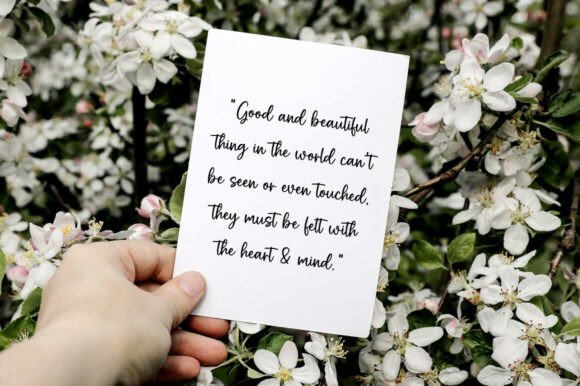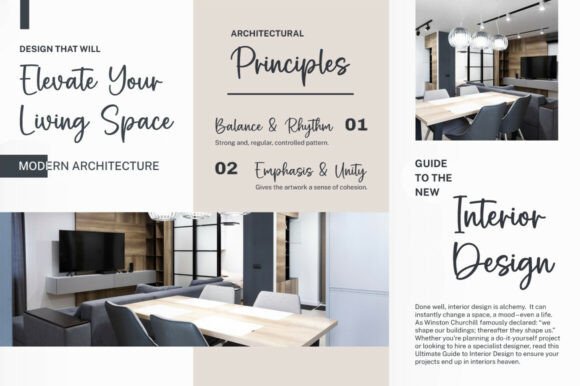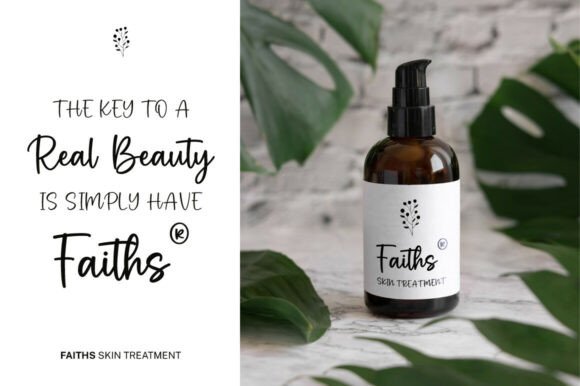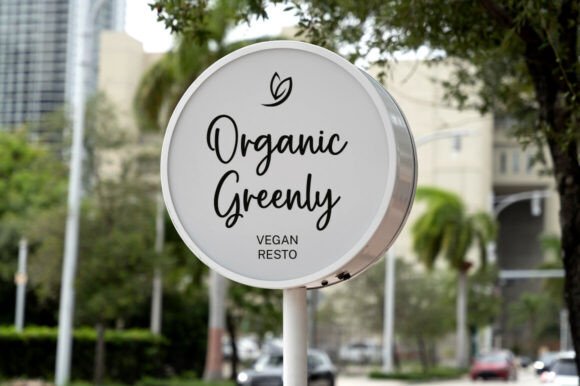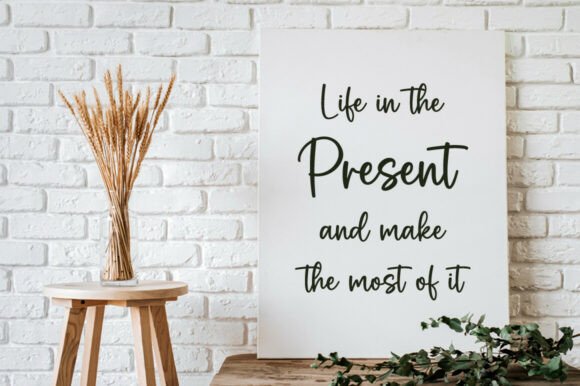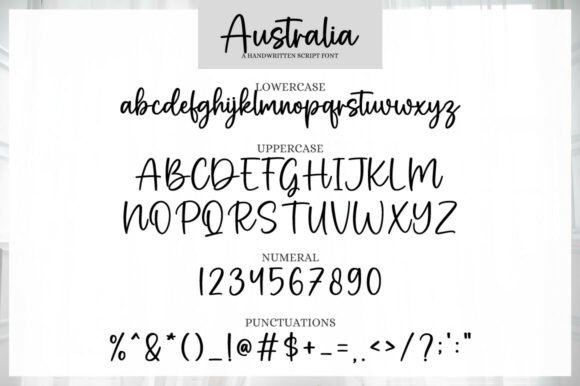
Australia Font: Elevate Your Designs with Elegance and Sophistication
Are you looking for a font that exudes refinement and sophistication? Look no further than the Australia Font. This delicate and refined script font is perfect for designers and crafters who want to add a touch of elegance to their creations. With its incredibly versatile style, you can use it to create a wide range of designs, from gorgeous wedding invitations to beautiful stationary art, eye-catching social media posts, and much more.
The Characteristics of Australia Font
The Australia Font is a script font that features flowing lines, intricate details, and a delicate touch. Its refined and elegant style makes it perfect for designs that require a high level of sophistication. The font is highly legible, making it suitable for use in a variety of contexts, from digital designs to print materials.
Uses of Australia Font
The Australia Font is an incredibly versatile font that can be used in a wide range of designs. Here are some ideas to get you started:
- Wedding Invitations: Create beautiful and elegant wedding invitations that set the tone for the big day. The Australia Font is perfect for printing on high-quality paper or cardstock.
- Stationary Art: Add a touch of elegance to your stationary art with the Australia Font. Use it to create gorgeous notecards, greeting cards, and journals.
- Social Media Posts: Make your social media posts stand out with the Australia Font. Use it to create eye-catching graphics, quotes, and promotions that grab attention.
- Branding: Use the Australia Font to create a sophisticated brand identity for your business. It’s perfect for logos, business cards, and letterheads.
- Packaging: Add a touch of elegance to your product packaging with the Australia Font. Use it to create beautiful labels, tags, and inserts.
Why Choose Australia Font?
There are many reasons why you should choose the Australia Font for your designs. Here are a few:
- Unique and Elegant: The Australia Font is a unique and elegant font that will set your designs apart from the rest.
- Highly Versatile: The font is highly versatile and can be used in a wide range of designs, from digital designs to print materials.
- Easy to Read: The font is highly legible, making it easy to read and understand.
- Customizable: The Australia Font can be customized to fit your design needs. You can adjust the size, color, and style to match your brand identity.
Tips for Using Australia Font
Here are some tips for using the Australia Font in your designs:
- Pair it with Other Fonts: Pair the Australia Font with other fonts to create a unique and interesting design.
- Use it in Combination with Images: Use the Australia Font in combination with images to create a beautiful and eye-catching design.
- Keep it Simple: Keep your design simple and elegant to let the font shine.
The Australia Font is a beautiful and elegant script font that is perfect for designers and crafters who want to add a touch of sophistication to their creations. With its incredibly versatile style, you can use it to create a wide range of designs, from gorgeous wedding invitations to beautiful stationary art, eye-catching social media posts, and much more. Whether you’re looking for a font for personal or professional use, the Australia Font is a great choice.
In conclusion, the Australia Font is a delicate and refined script font that emanates sophistication and elegance. Its incredibly versatile style makes it perfect for a wide range of designs, from digital designs to print materials. Whether you’re a designer or crafter, the Australia Font is a great addition to your font collection.